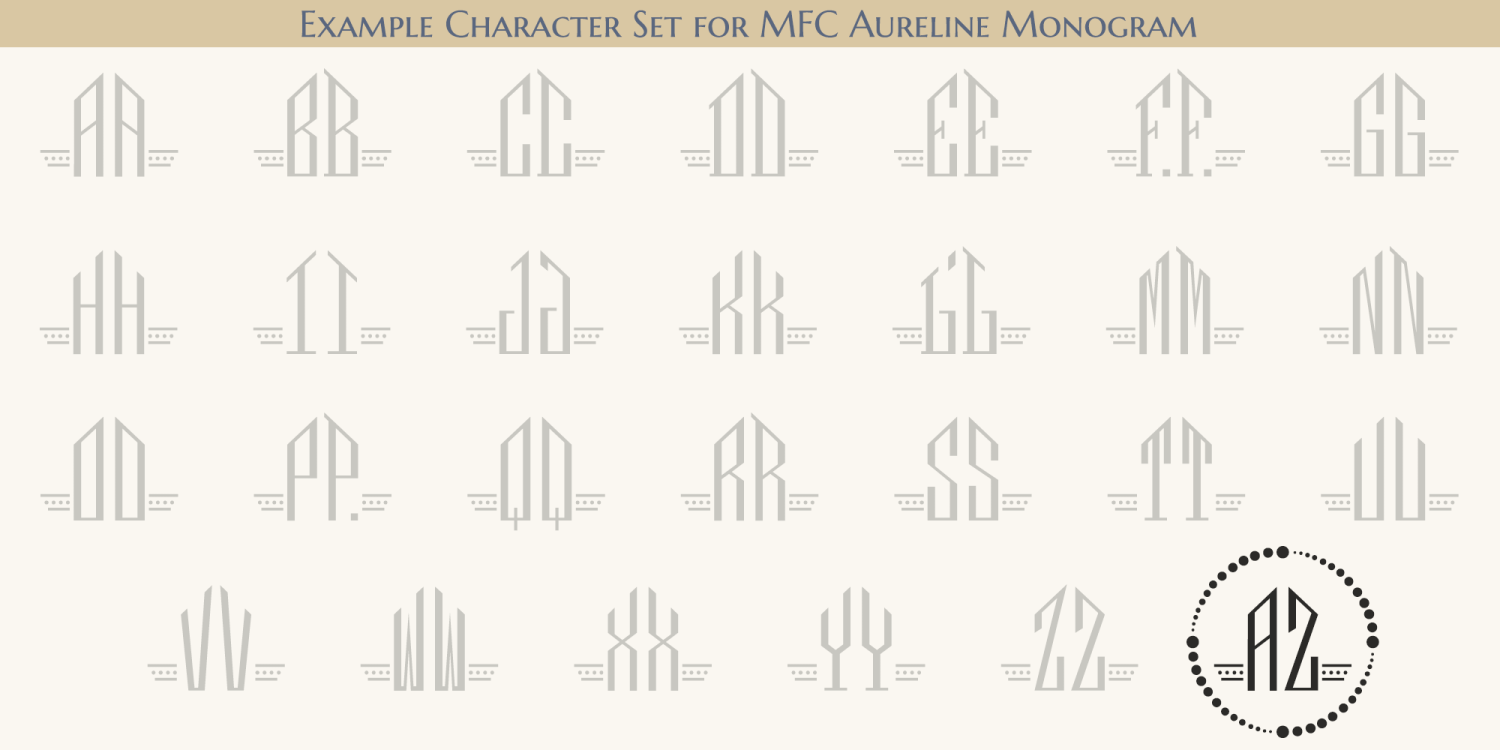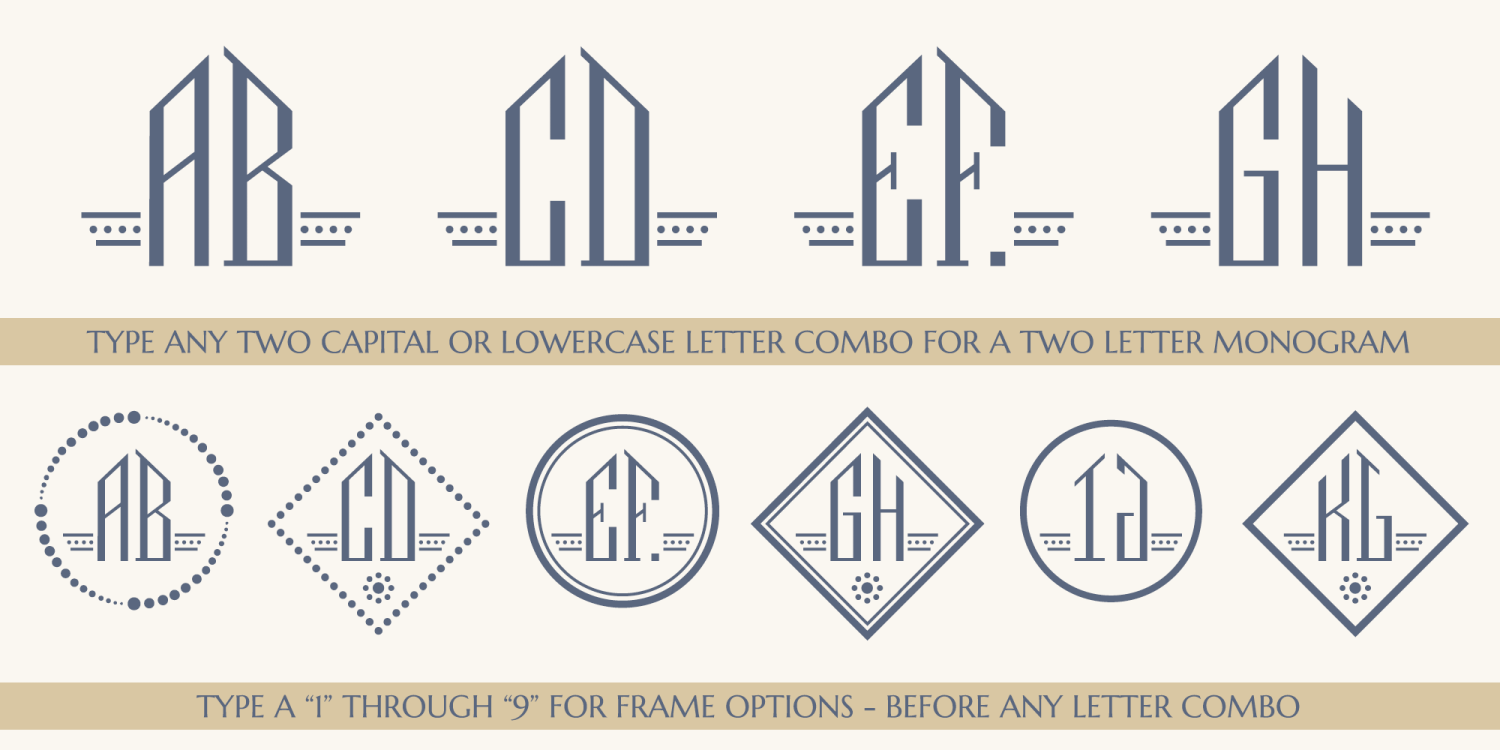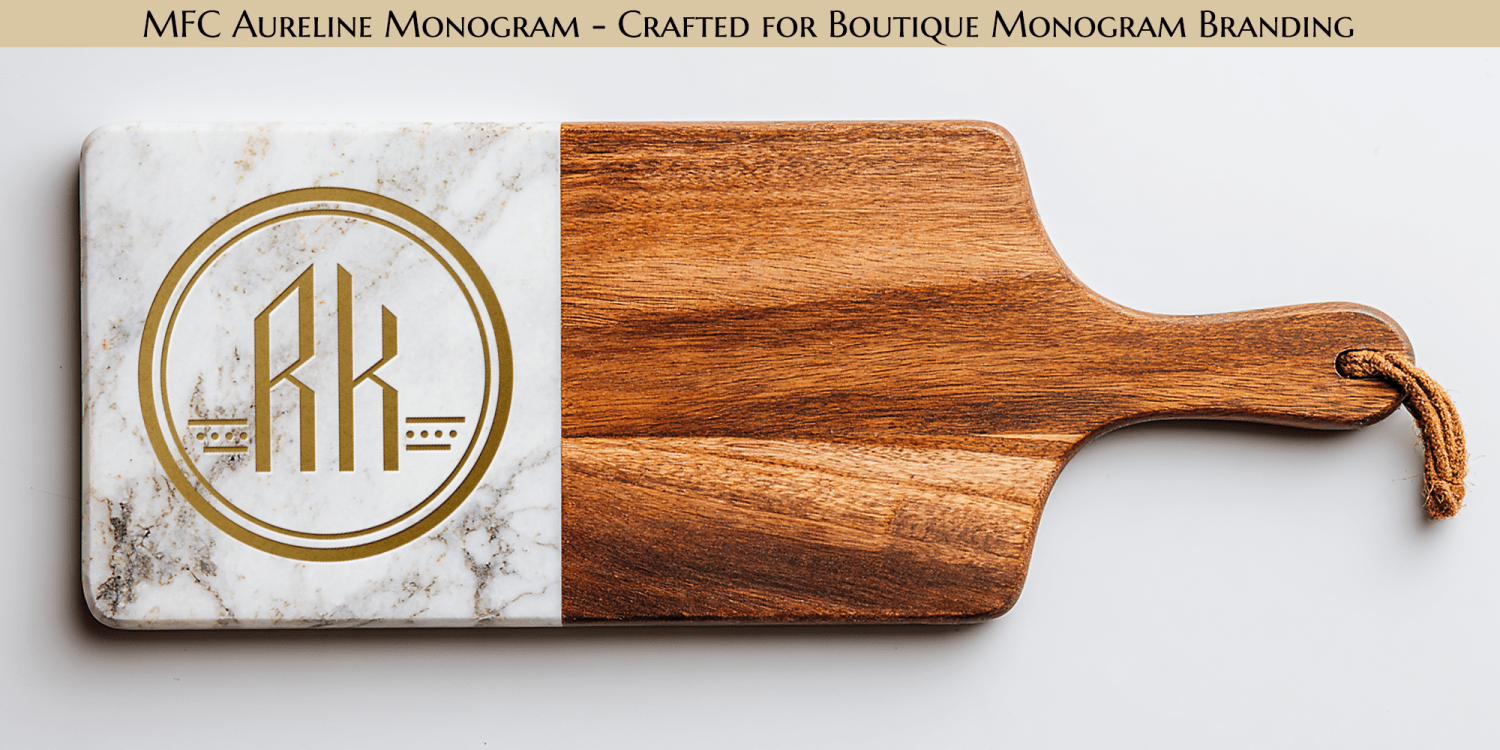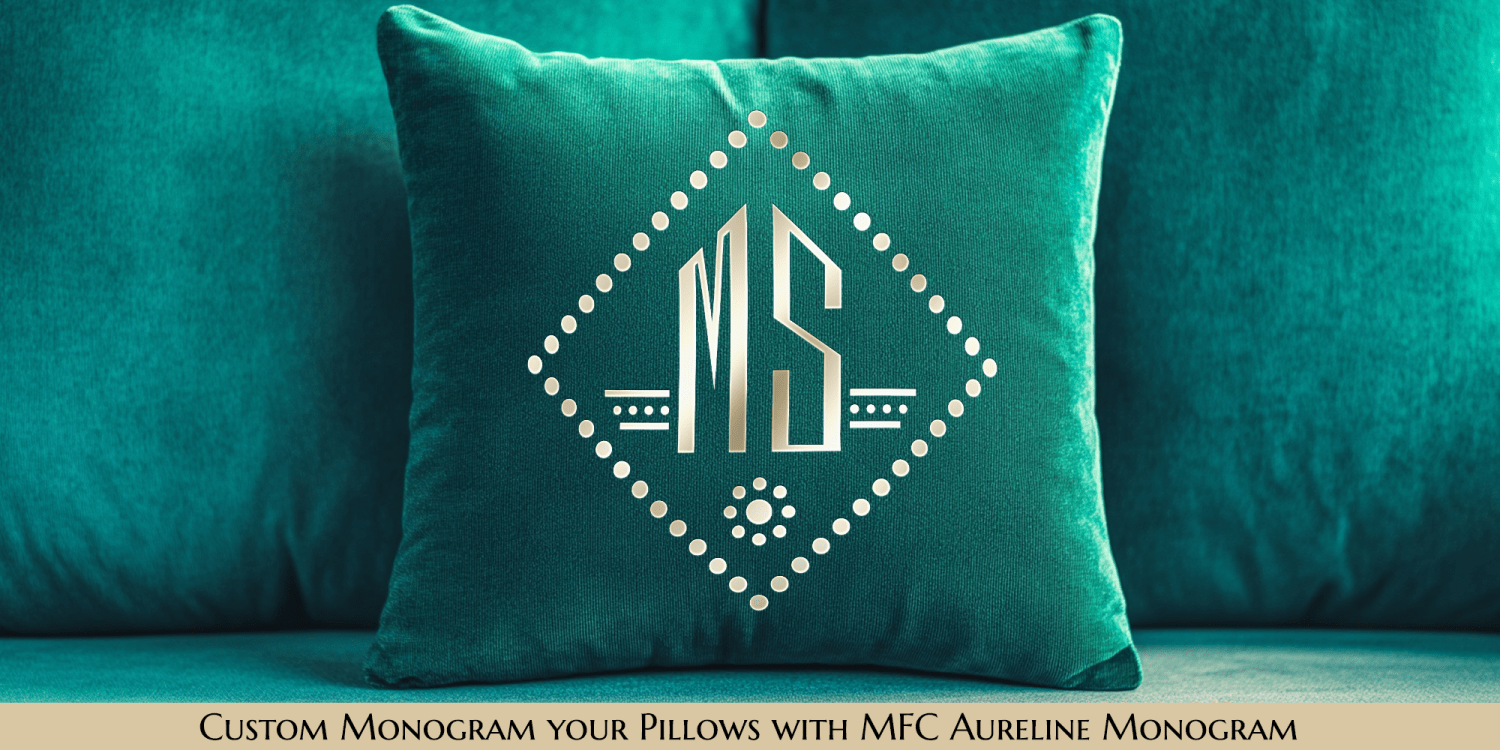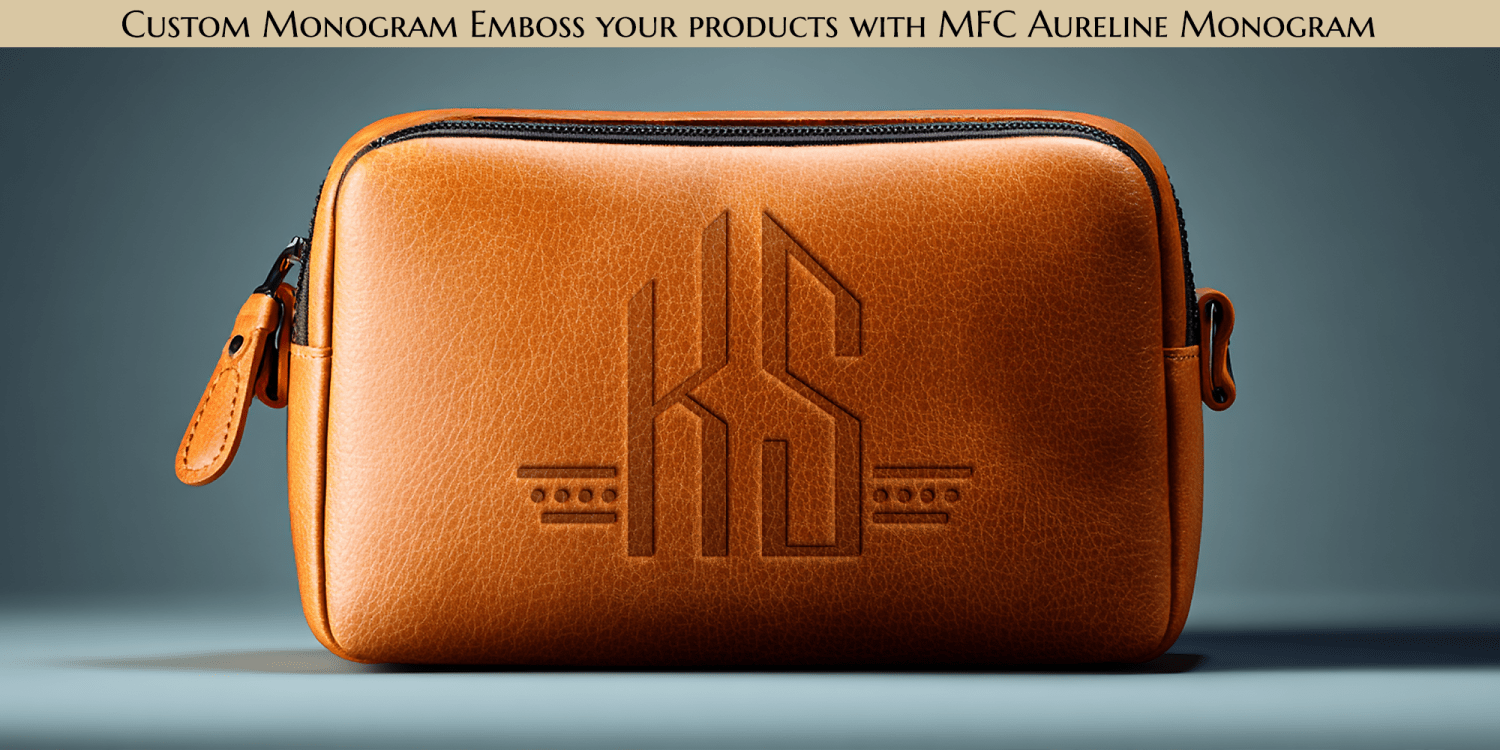
MFC Aureline Monogram
MFC Aureline Monogram is a luminous monogram crafted for designers who want their initials to feel precious, architectural, and flawlessly refined. Inspired by the gleaming geometry of Art Deco jewelry and the delicate radiance of beaded ornaments, MFC Aureline Monogram brings a modern luxury sensibility to the classic tradition of monogram design.
This elegant set features tall, finely sculpted letterforms paired with a selection of circular, diamond, and faceted frames—each accented with deco inspired linear and dotwork detailing that echoes pearl settings, celestial constellations, and vintage boutique emblems. The result is a monogram style with a subtle sparkle: minimalist in structure, yet irresistibly ornamental.
Designed with the premium craftsmanship expected from Monogram Fonts Co, MFC Aureline Monogram is perfect for wedding branding, upscale packaging, boutique identities, personalized stationery, and any project where initials are meant to shine.